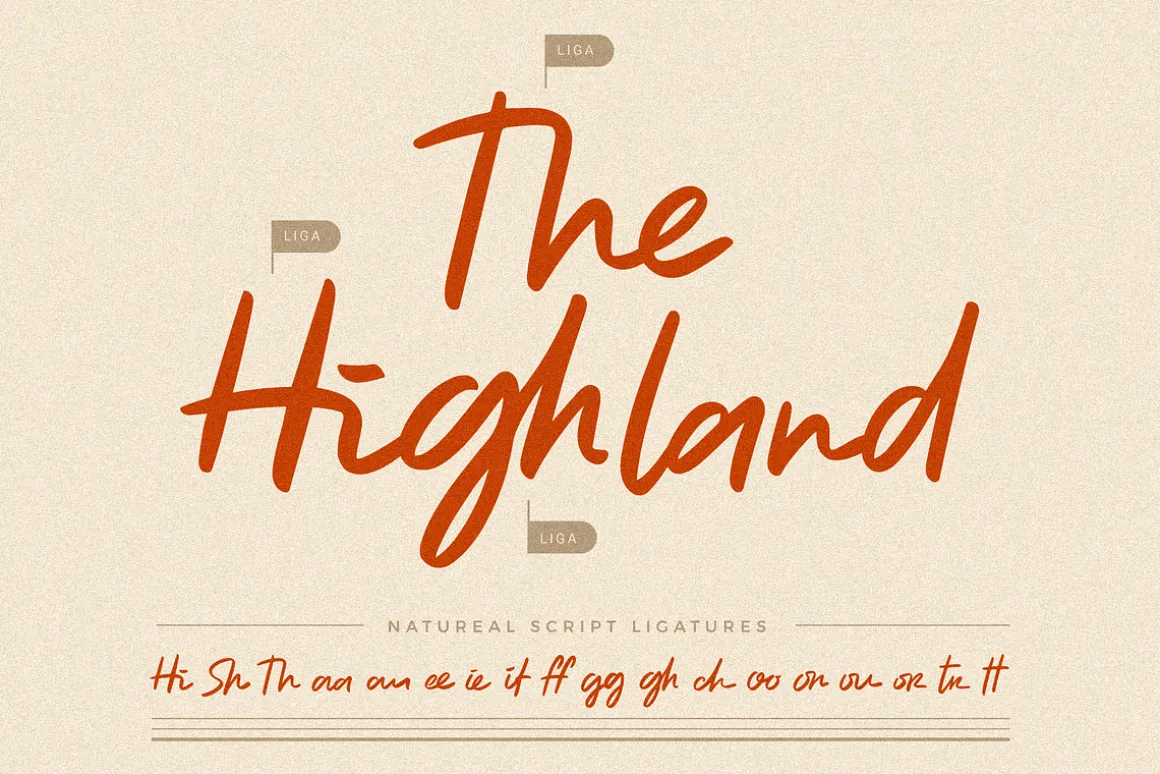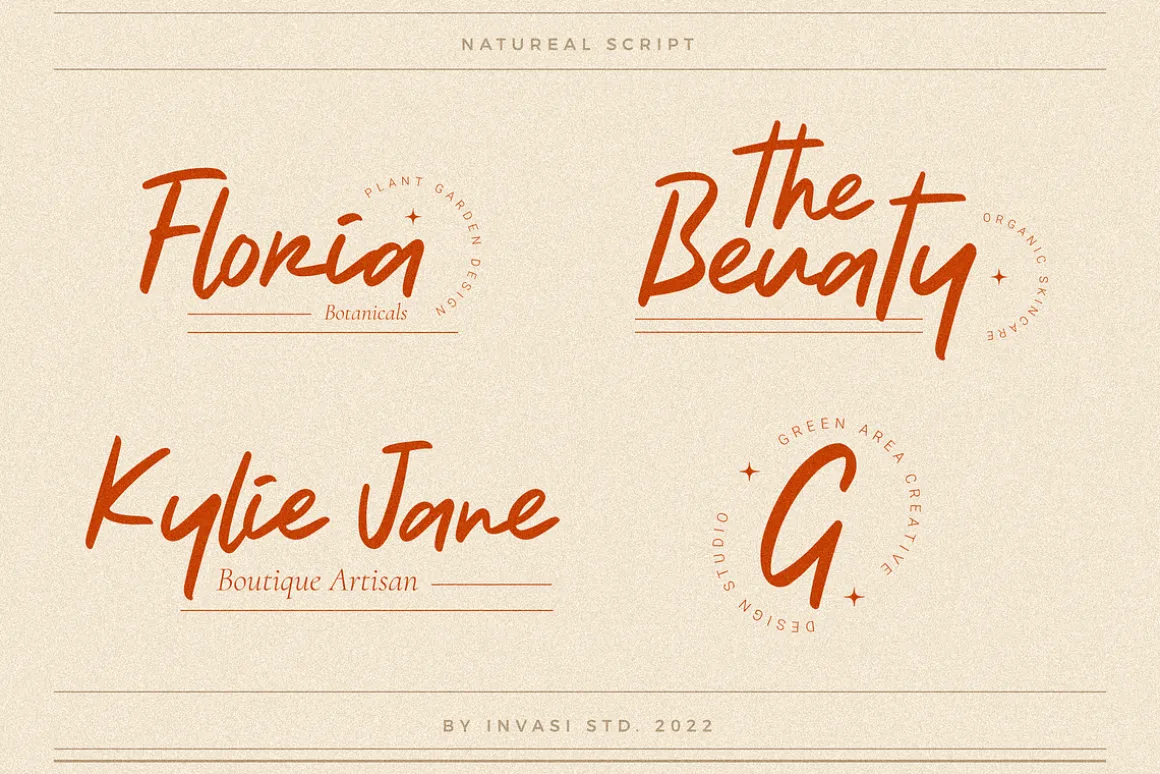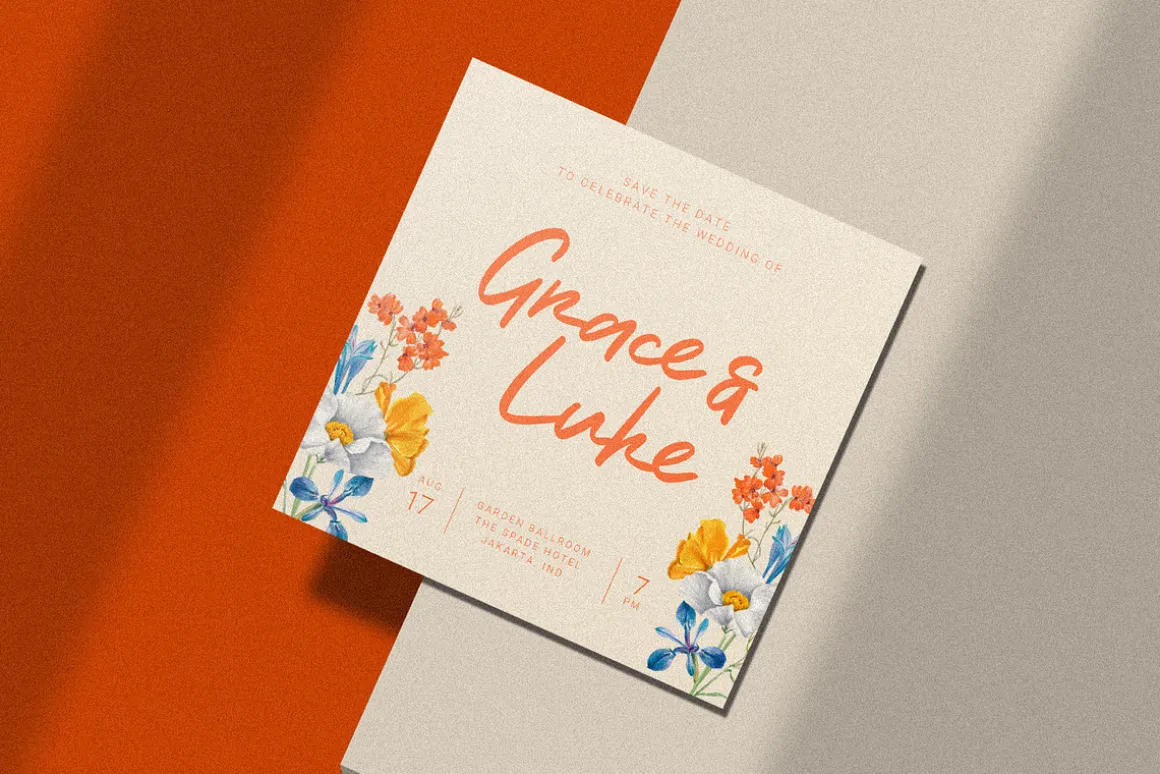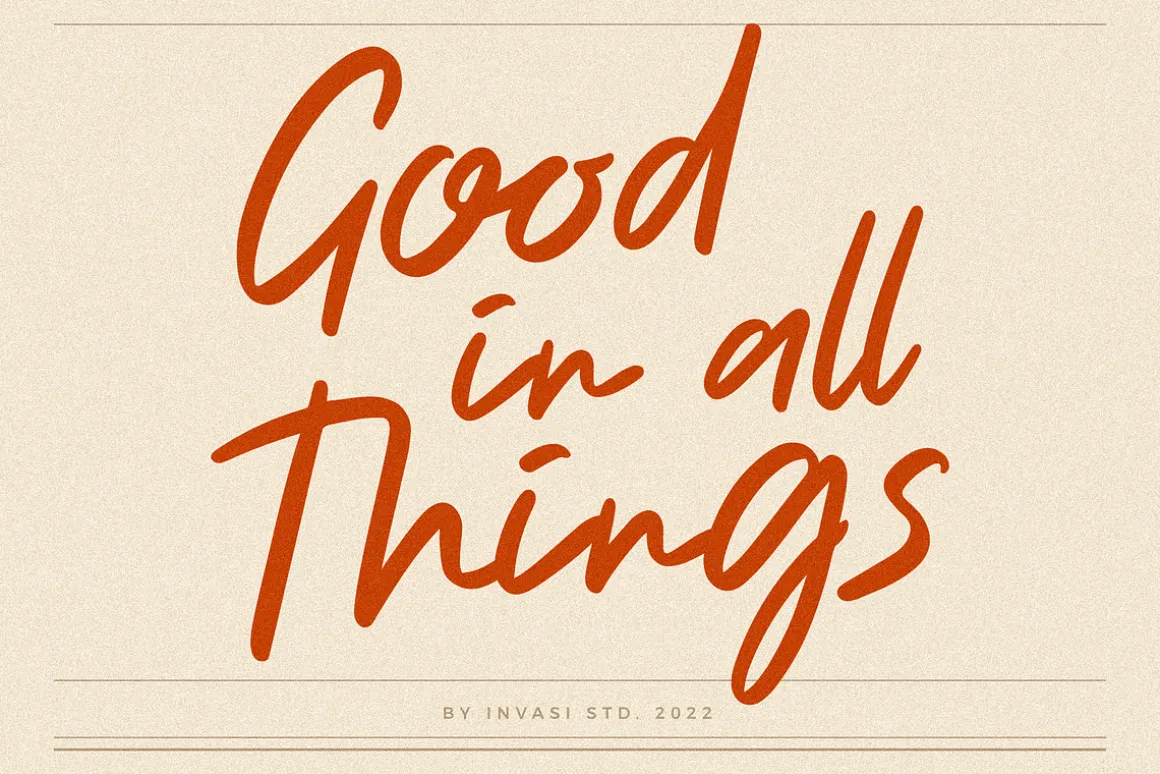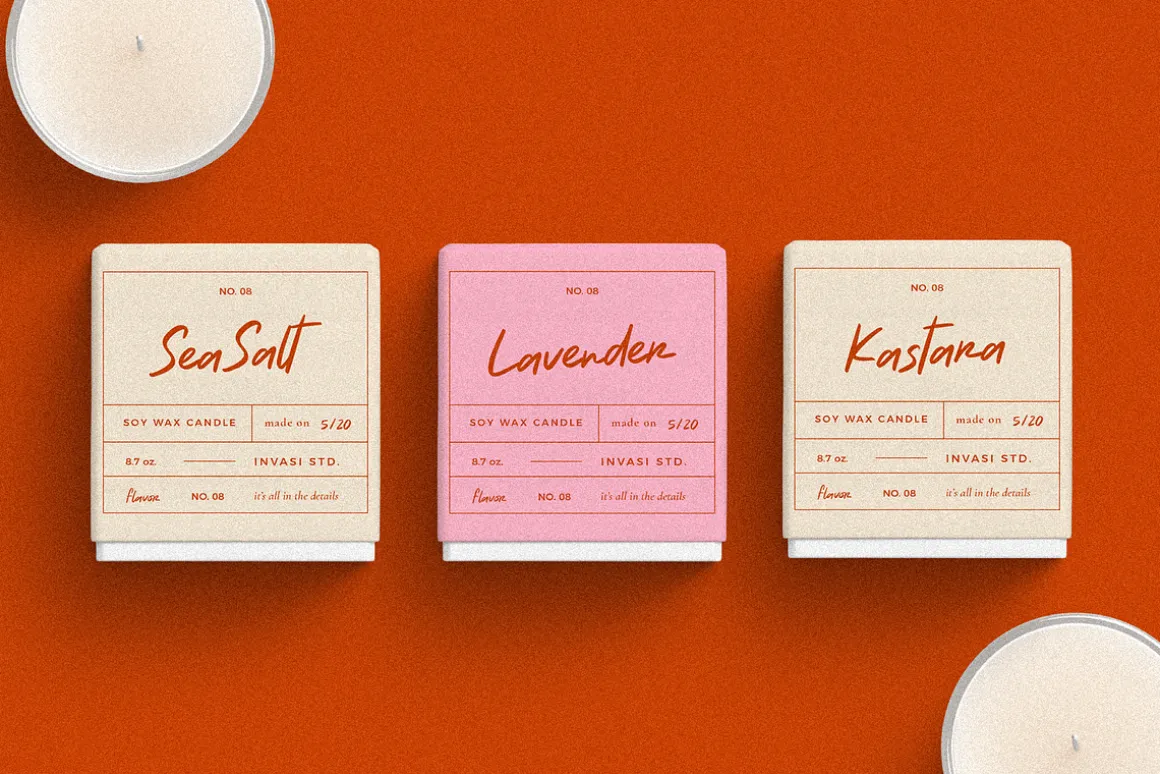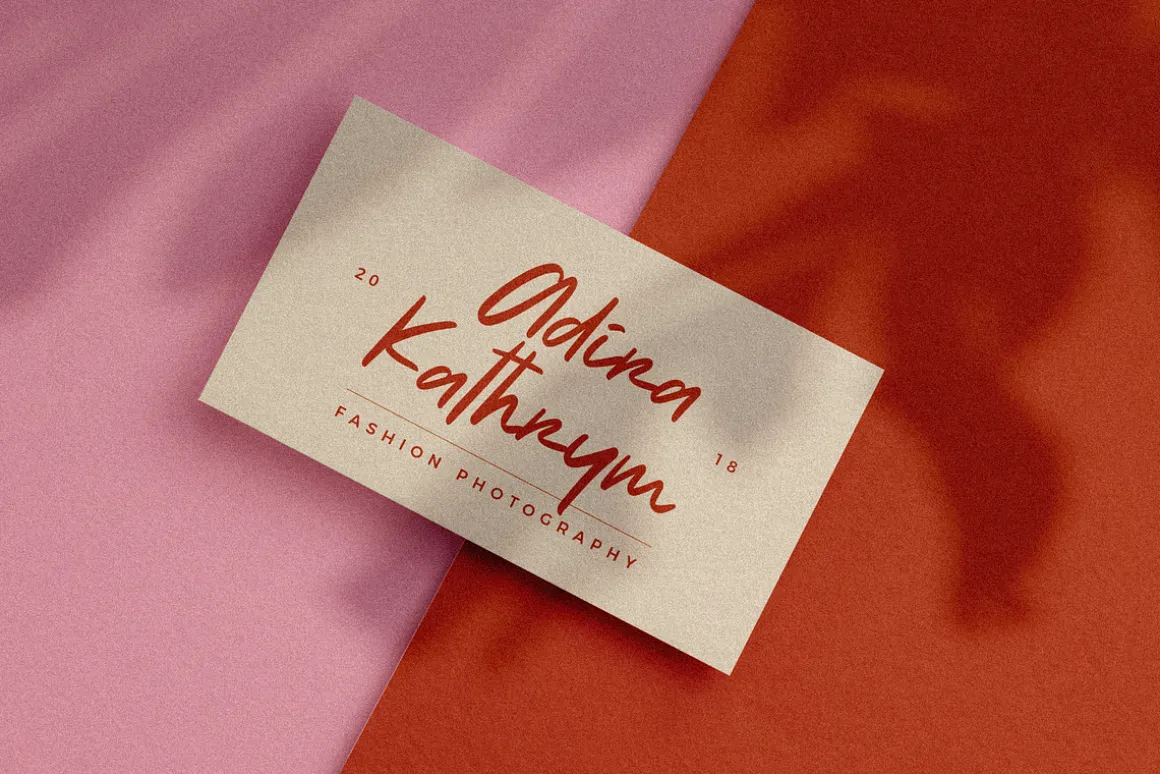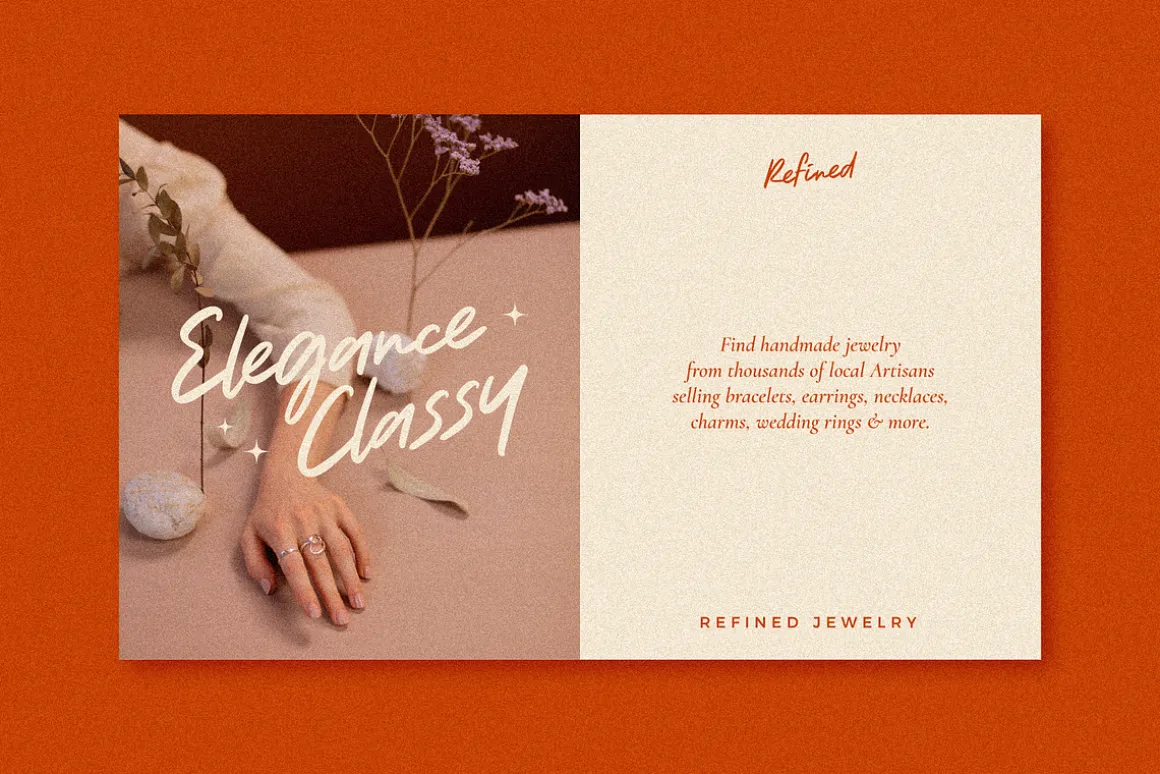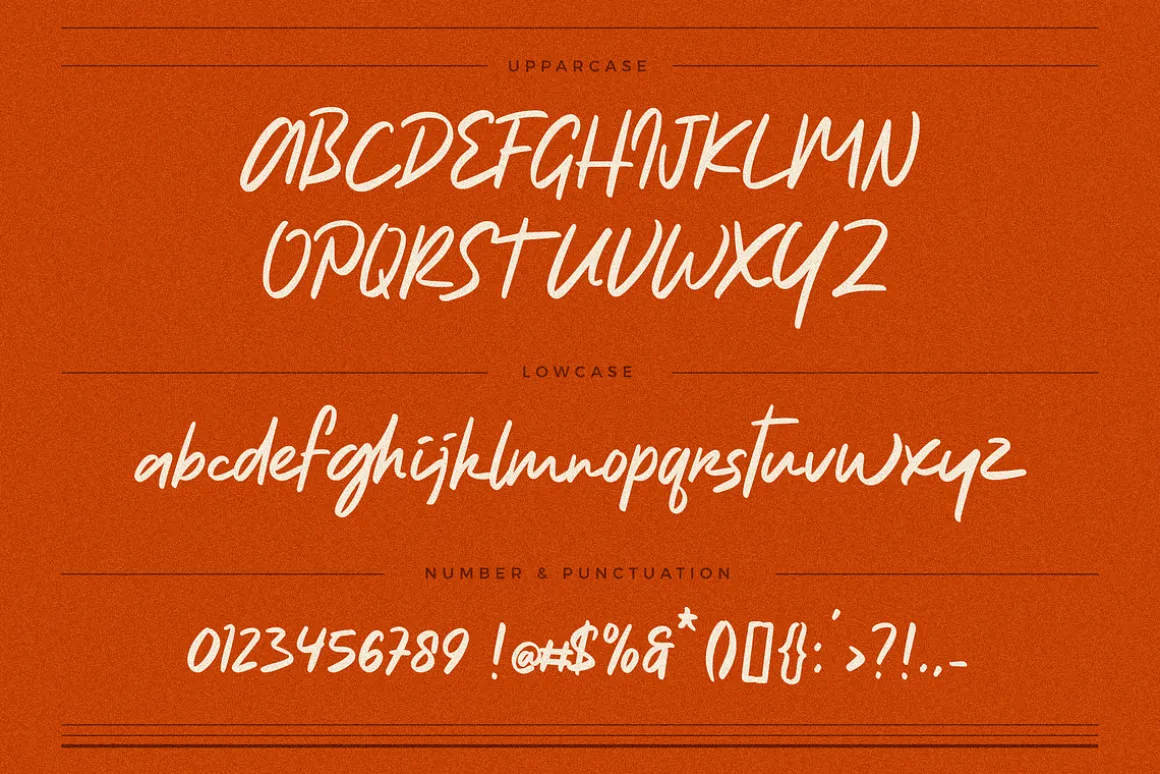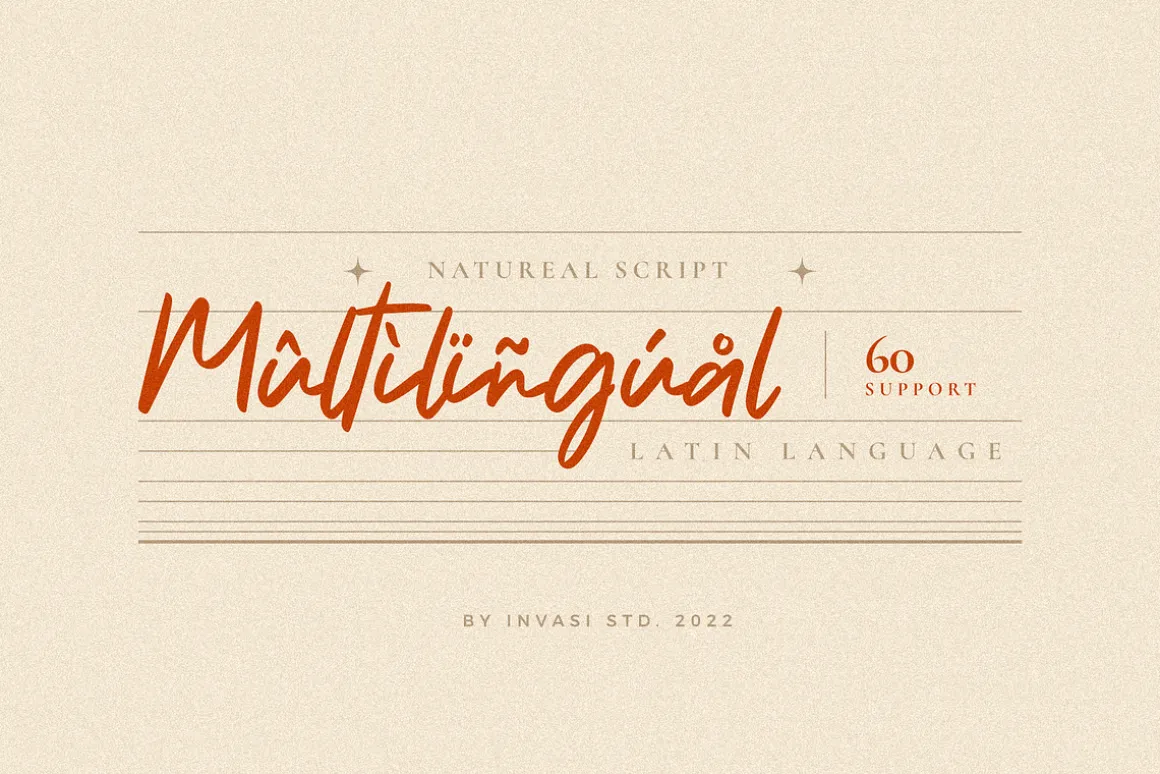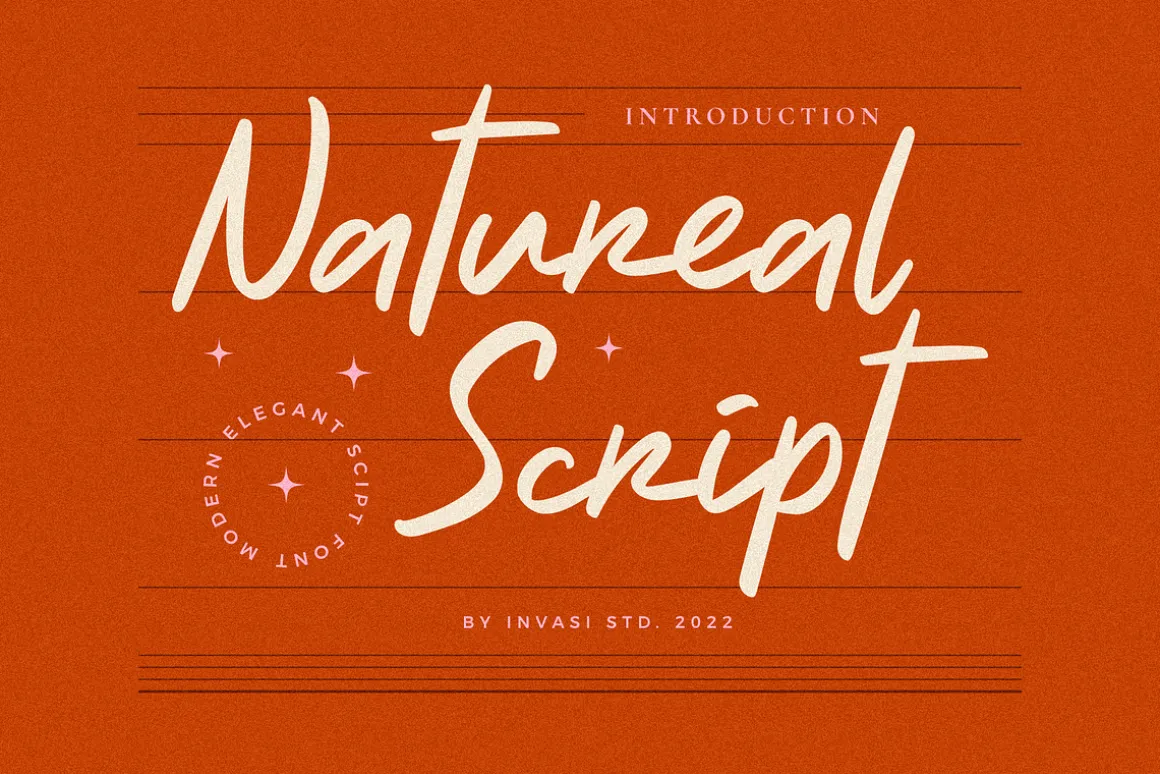
A new font from our Script Collection is called Natureal Script. This hand-drawn typeface creates with digital hand-drawn style in its classy script display. This font was created to help you tell your story. This font comes with so many ligatures, that you can use that for more fun on your projects.
Natureal Script font is perfect for quotes, headlines, branding projects, or any project requiring an elegant feel.
- Total 217 Glyph
- Uppercase & Lowercase
- Numerals & Punctuation
- Multilanguage Supports 60+ Latin based languages
- Ligatures